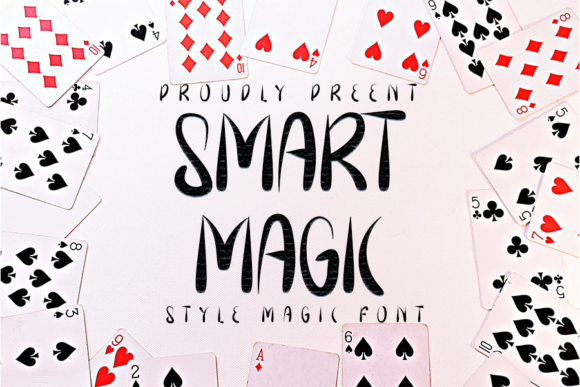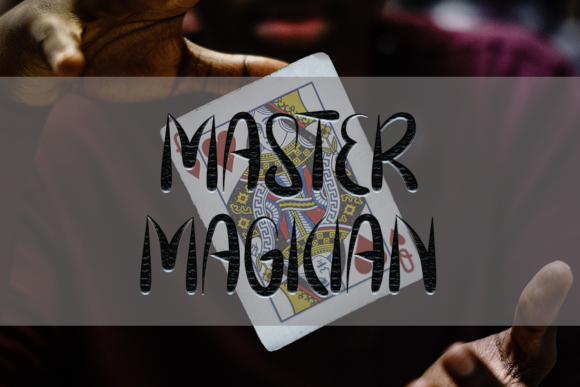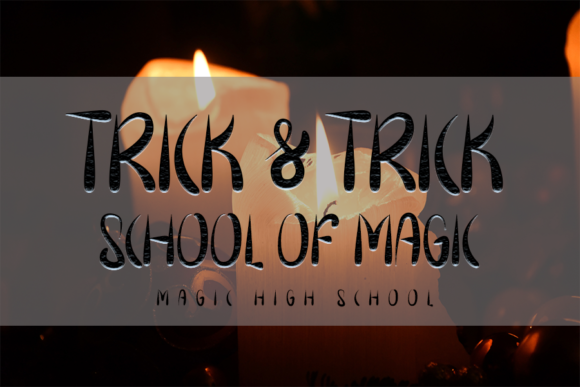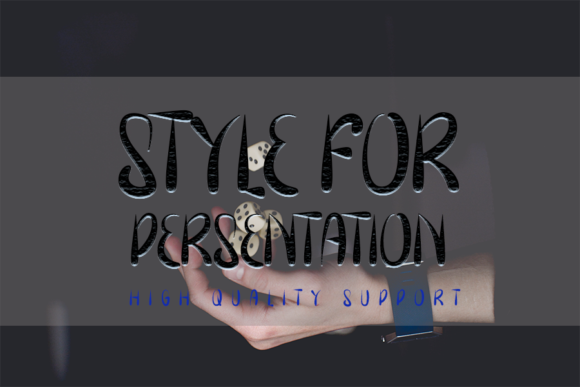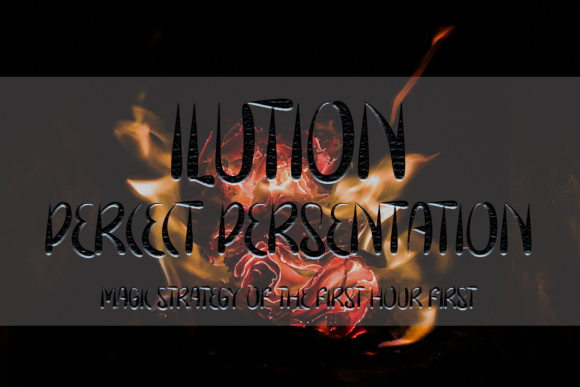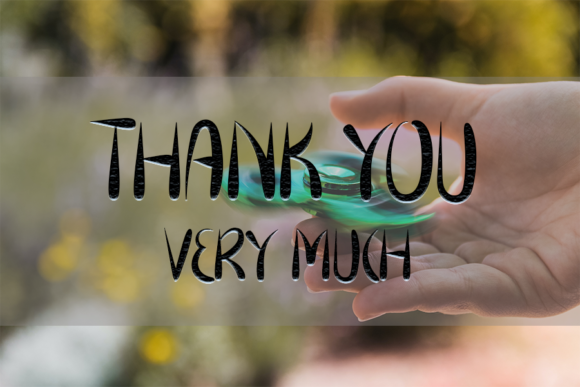
Smart Magic Font
About Smart Magic Font
Smart Magic is a unique and a bit quirky handwritten font. This playful font with its neat letter arrangement will look truly outstanding in a wide range of contexts.